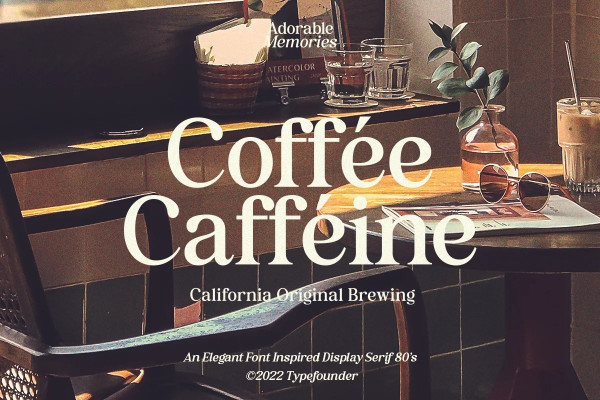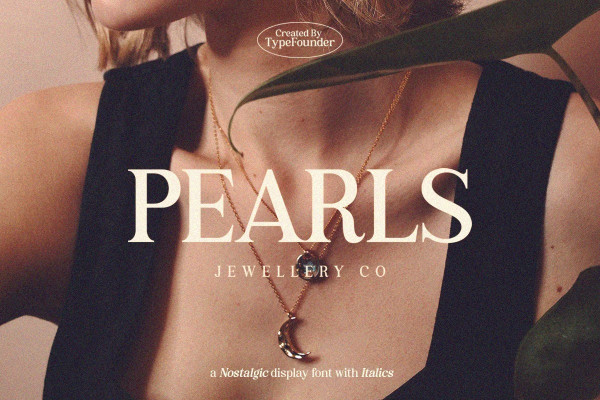
Adorable Memories Font
Adorable Memories Font is a nostalgic serif typeface that looks incredible in both large and small settings as a display and body text in regular – italic version. suitable for any branding purpose.